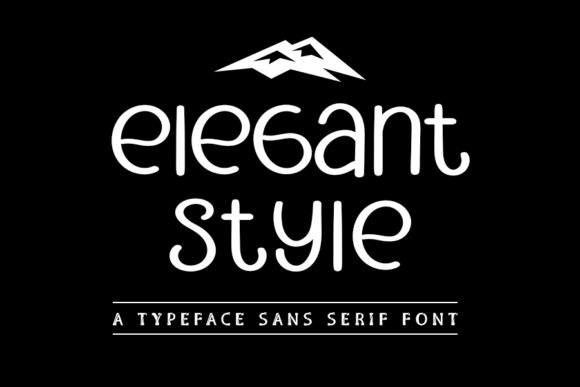
Elegant Style Font: Elevate Your Designs with a Minimal and Neat Sans Serif Font
In the world of typography, fonts play a crucial role in conveying the tone and personality of a brand or design. When it comes to creating a lasting impression, the right font can make all the difference. Introducing Elegant Style Font, a minimal and neat sans serif font that is designed to elevate your designs and make them stand out. In this article, we’ll explore the features and benefits of Elegant Style Font, and how it can be used to add a touch of sophistication to your creative projects.
What is Elegant Style Font?
Elegant Style Font is a modern sans serif font that is characterized by its clean lines, simple shapes, and minimalist aesthetic. The font is designed to be versatile and can be used for a wide range of projects, from branding and advertising to packaging and digital media. Its elegant and refined appearance makes it perfect for designs that require a touch of sophistication and luxury.
Key Features of Elegant Style Font
- Minimal and Neat Design: Elegant Style Font features a clean and minimalist design that is free from unnecessary embellishments. This makes it easy to read and versatile for use in a variety of contexts.
- Sans Serif: The font is a sans serif font, which means it doesn’t have serifs or small lines at the ends of the strokes. This gives it a modern and sleek appearance.
- Highly Legible: Elegant Style Font is designed to be highly legible, even at small sizes. This makes it perfect for use in body text, captions, and other applications where readability is crucial.
- Versatile: The font is highly versatile and can be used for a wide range of projects, from print materials to digital media.
Benefits of Using Elegant Style Font
So, why should you choose Elegant Style Font for your designs? Here are just a few benefits of using this elegant and refined font:
- Adds Sophistication and Luxury: Elegant Style Font adds a touch of sophistication and luxury to your designs, making it perfect for high-end brands and premium products.
- Improves Readability: The font’s clean and minimalist design makes it easy to read, even for extended periods of time.
- Versatile: Elegant Style Font can be used for a wide range of projects, from print materials to digital media, making it a great addition to any designer’s toolkit.
- Easy to Pair: The font is easy to pair with other fonts, making it simple to create harmonious and visually appealing typography.
How to Use Elegant Style Font
Elegant Style Font is a versatile font that can be used for a wide range of projects. Here are just a few ideas to get you started:
- Branding and Advertising: Use Elegant Style Font to create elegant and refined branding and advertising materials, such as logos, business cards, and billboards.
- Packaging Design: The font is perfect for packaging design, adding a touch of sophistication and luxury to product labels and packaging.
- Digital Media: Use Elegant Style Font to create visually appealing digital media, such as website headers, social media graphics, and email newsletters.
- Print Materials: The font is also great for print materials, such as brochures, flyers, and posters.
Tips for Pairing Elegant Style Font with Other Fonts
Pairing Elegant Style Font with other fonts can be a great way to create visually appealing and harmonious typography. Here are a few tips to keep in mind:
- Choose Fonts with Similar Styles: When pairing Elegant Style Font with other fonts, choose fonts that have similar styles and aesthetics. This will help create a cohesive and harmonious look.
- Use Contrast: Use contrast to create visual interest and hierarchy in your typography. Pair Elegant Style Font with a bold or italic font to create contrast and add emphasis.
- Limit Font Choices: Limit your font choices to two or three fonts to avoid visual clutter and keep your typography clean and simple.
Elegant Style Font is a minimal and neat sans serif font that is designed to elevate your designs and make them stand out. With its clean lines, simple shapes, and minimalist aesthetic, this font is perfect for designs that require a touch of sophistication and luxury. Whether you’re working on a branding project, packaging design, or digital media, Elegant Style Font is a great choice. So why not give it a try and see how it can add a touch of elegance to your designs?
- What is Elegant Style Font?: Elegant Style Font is a minimal and neat sans serif font designed for use in a wide range of projects.